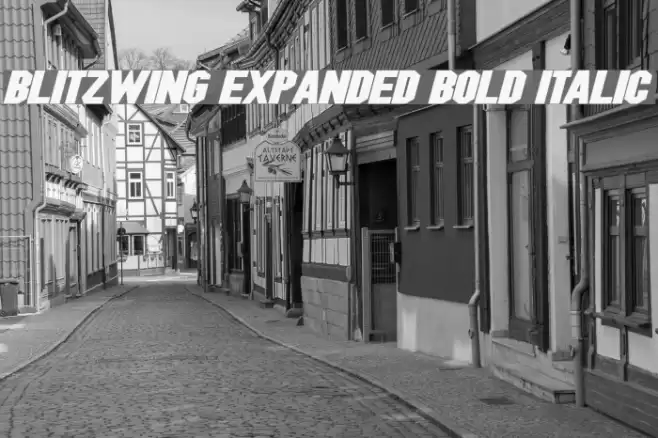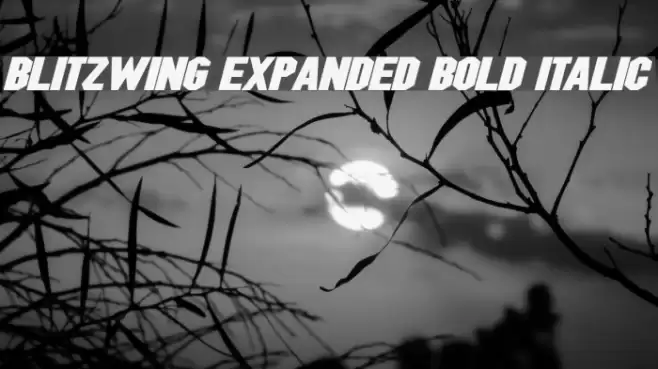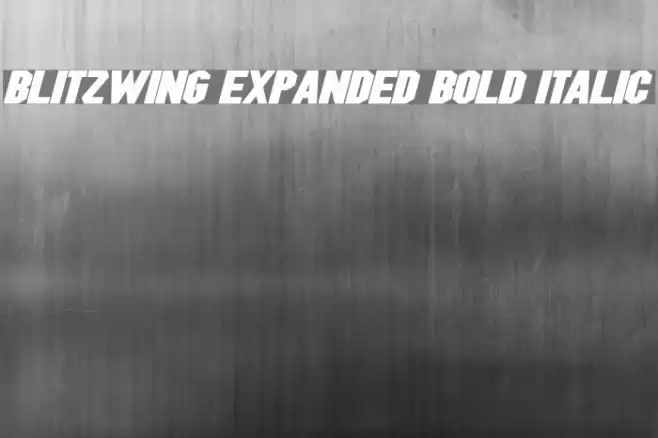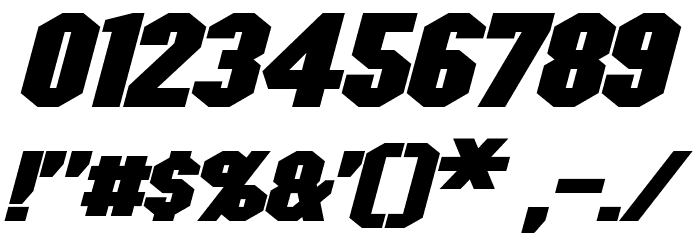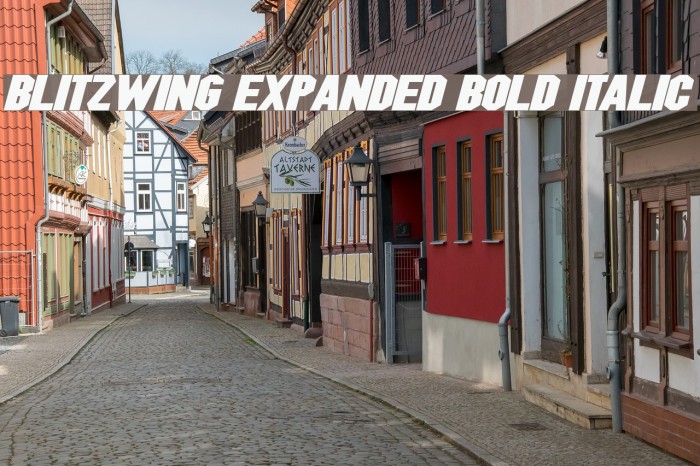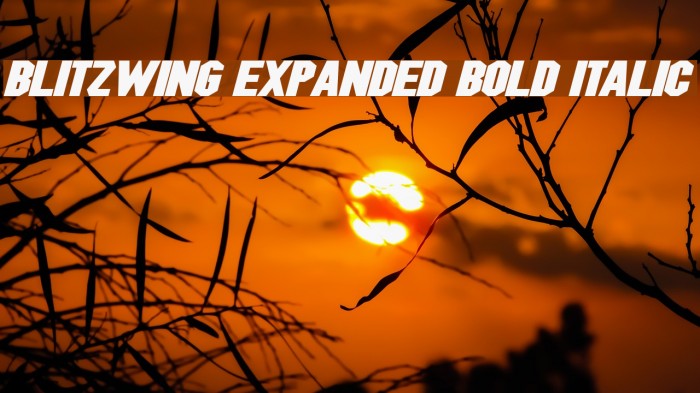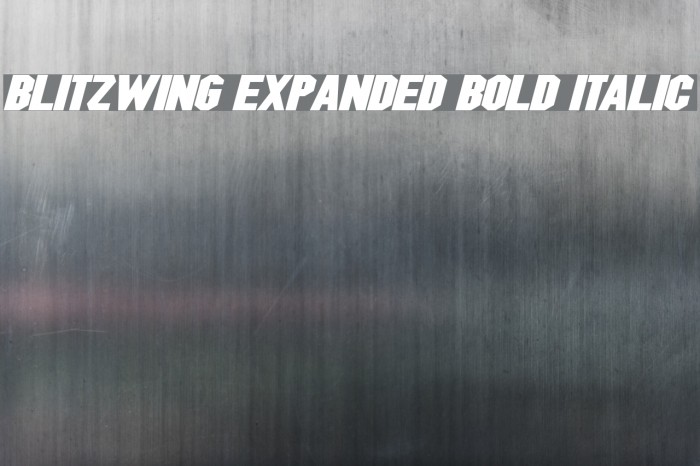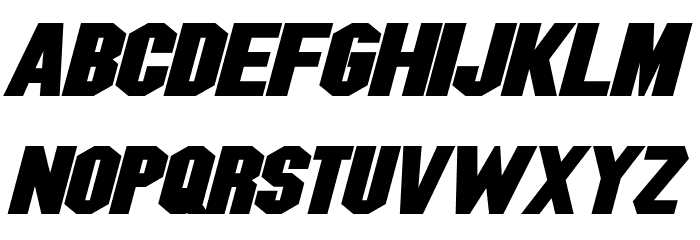
Blitzwing Expanded Bold Italic Font
Blitzwing Expanded Bold Italic Description
This font features a bold and dynamic style with an italic slant, giving it a sense of motion and energy. The characters are expanded, providing a wide stance that enhances readability while maintaining a strong visual impact. The design incorporates sharp angles and clean lines, creating a modern and assertive appearance. The uppercase and lowercase letters are consistent in style, with numerals and special characters complementing the overall aesthetic. This font is ideal for projects that require a bold statement and a contemporary look.
A bold, expanded, and italic font with a dynamic and modern style from Uncategorized fonts.
- Proposed Projects: Ideal for branding, advertising, sports team logos, and dynamic headlines.